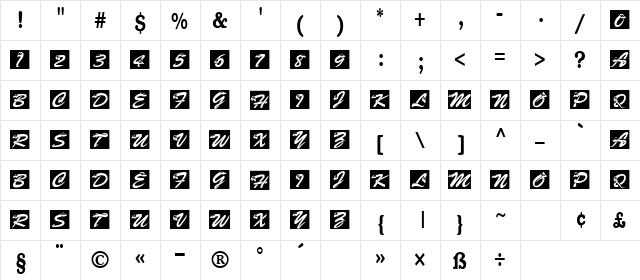
KASnakeNite Regular Font Preview
KASnakeNite Regular
KASnakeNite Regular Font Details
Design Context for KASnakeNite Typeface
KASnakeNite is a composed and adaptable typeface that performs quietly and consistently across a wide range of design contexts.
Pro Tip: Use KASnakeNite in both headline and body roles to test its range before committing to a single application.